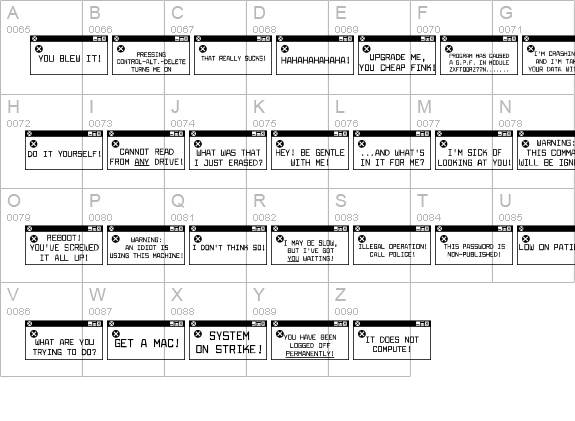
Error Messages JL Font Details
Error Messages JL is a unique and eye-catching font that is perfect for adding a touch of creativity to your design projects. With its bold and edgy style, this font is sure to make a statement wherever it is used. The quirky letter shapes and intricate details of Error Messages JL give it a modern and dynamic look that will captivate your audience. What makes Error Messages JL even more appealing is that it is available for free download at FontsMarket.com. Yes, you read that right - you can get your hands on this stunning font without spending a penny. So why wait? Download Error Messages JL today and unleash your creativity with this amazing font.